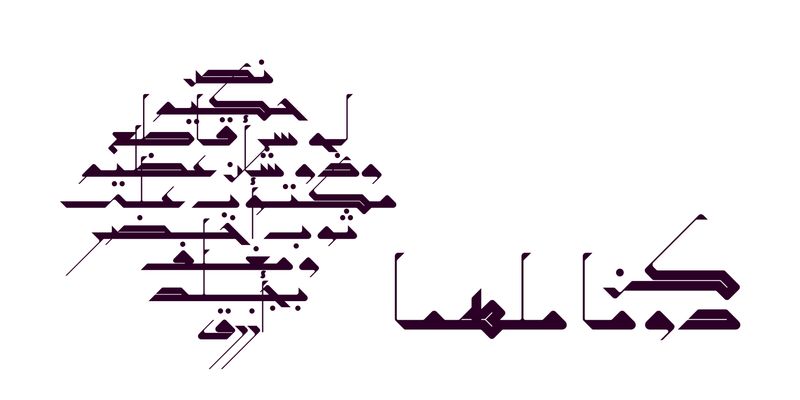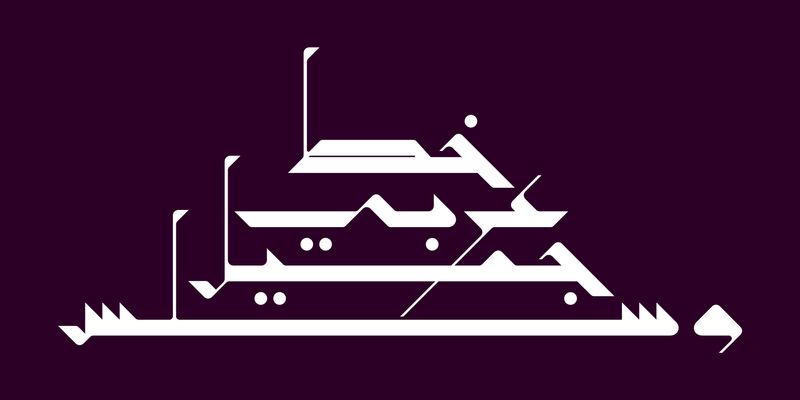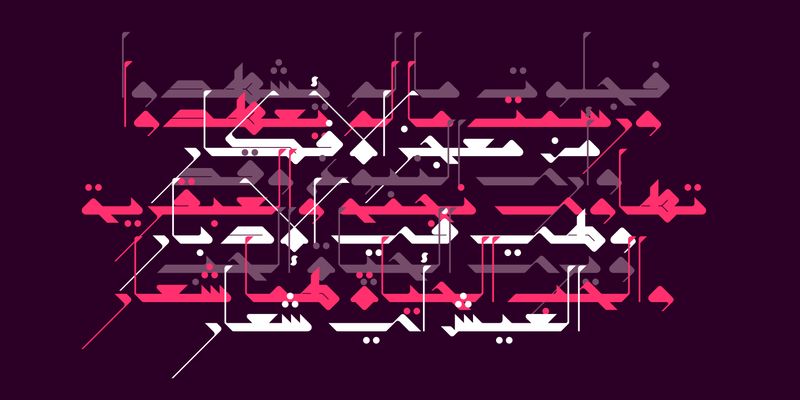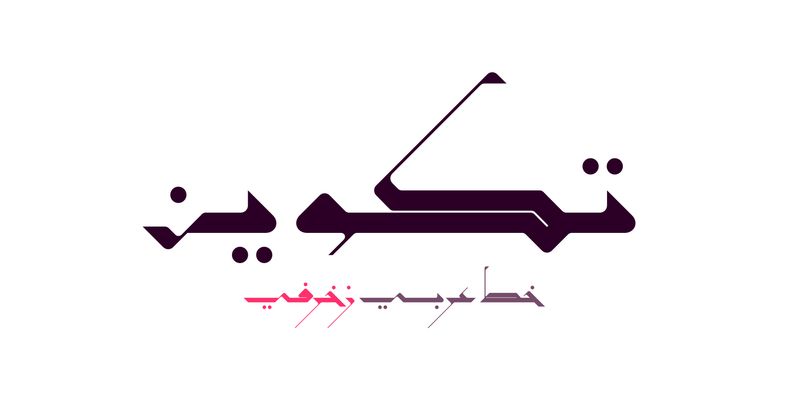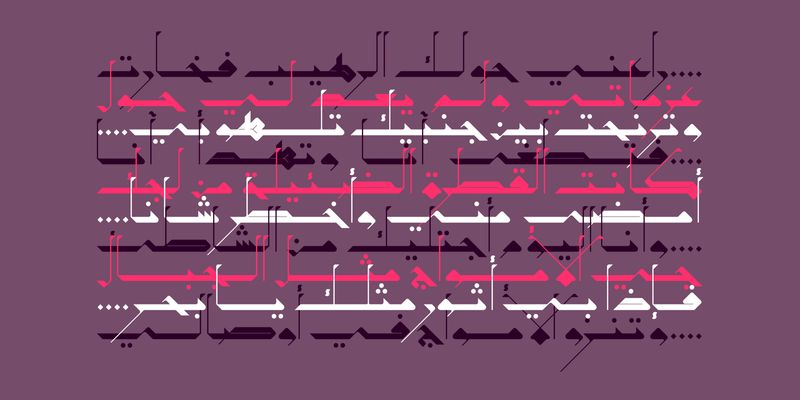
Takween (Arabic for “composition”) is an expressive Arabic display font inspired by the elegance of the Mashrequi writing style. Its distinctive forms make it a powerful choice for typographic compositions, ornamental artwork, and abstract visual themes. With its refined balance of tradition and modernity, Takween also shines in branding, print design, and web experiences-bringing a crafted, artistic character to any creative project.
Mostafa El Abasiry is an independent Arabic type designer whose work has helped define a new era of expressive Arabic typography. Since 2009, he has built a distinctive and influential catalogue of Arabic typefaces known for their bold geometry, modern aesthetics, and emotionally resonant visual character. His designs are widely recognized for merging the structural clarity of geometric construction with the creative freedom of contemporary display typography.
Mostafa’s approach is rooted in a balance of mathematical precision and artistic intuition. Many of his typefaces begin as geometric studies - circles, arcs, grids, and modular systems, before evolving into expressive display families with strong visual identity. Other designs explore texture, layering, and experimental forms, expanding the expressive potential of Arabic letterforms in digital environments.
In 2017, Mostafa introduced Tajreed, the first Arabic OpenType‑SVG color font ever created. This pioneering work brought textured, multi‑layered Arabic typography into mainstream digital use and opened a new category of expressive Arabic tools for designers and everyday creators. Tajreed later grew into a broader ecosystem of textured and experimental families that influenced how Arabic typography appears in mobile apps, creative platforms, and user‑generated content.
Mostafa’s typefaces have been used by a wide range of clients, from global brands such as Apple TV+ and Turkish Airlines to millions of everyday creators. Despite this reach, his design process remains deeply personal: every typeface begins with hand‑drawn sketches, geometric construction, and a search for a unique visual voice rooted in Arab visual culture.
Today, Mostafa continues to expand his catalogue with new display families, textured experiments, and modern interpretations of Arabic typographic heritage. His work aims to give designers and creators expressive tools that did not exist before - tools that make Arabic typography feel bold, modern, and alive.